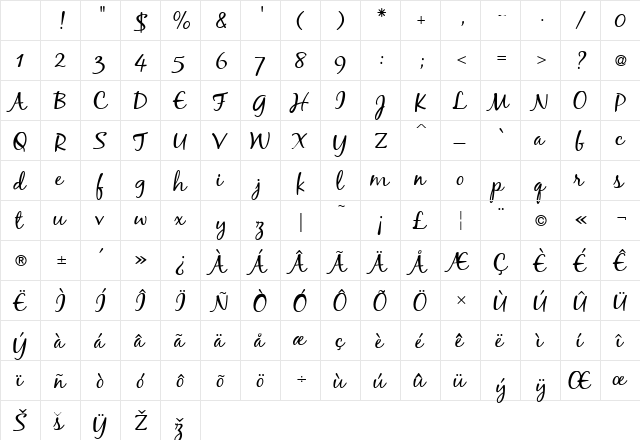
Complete Black Jack Regular glyph index. Displaying only characters natively supported by Black Jack Regular font.
Black Jack is a composed and adaptable typeface that performs quietly and consistently across a wide range of design contexts.